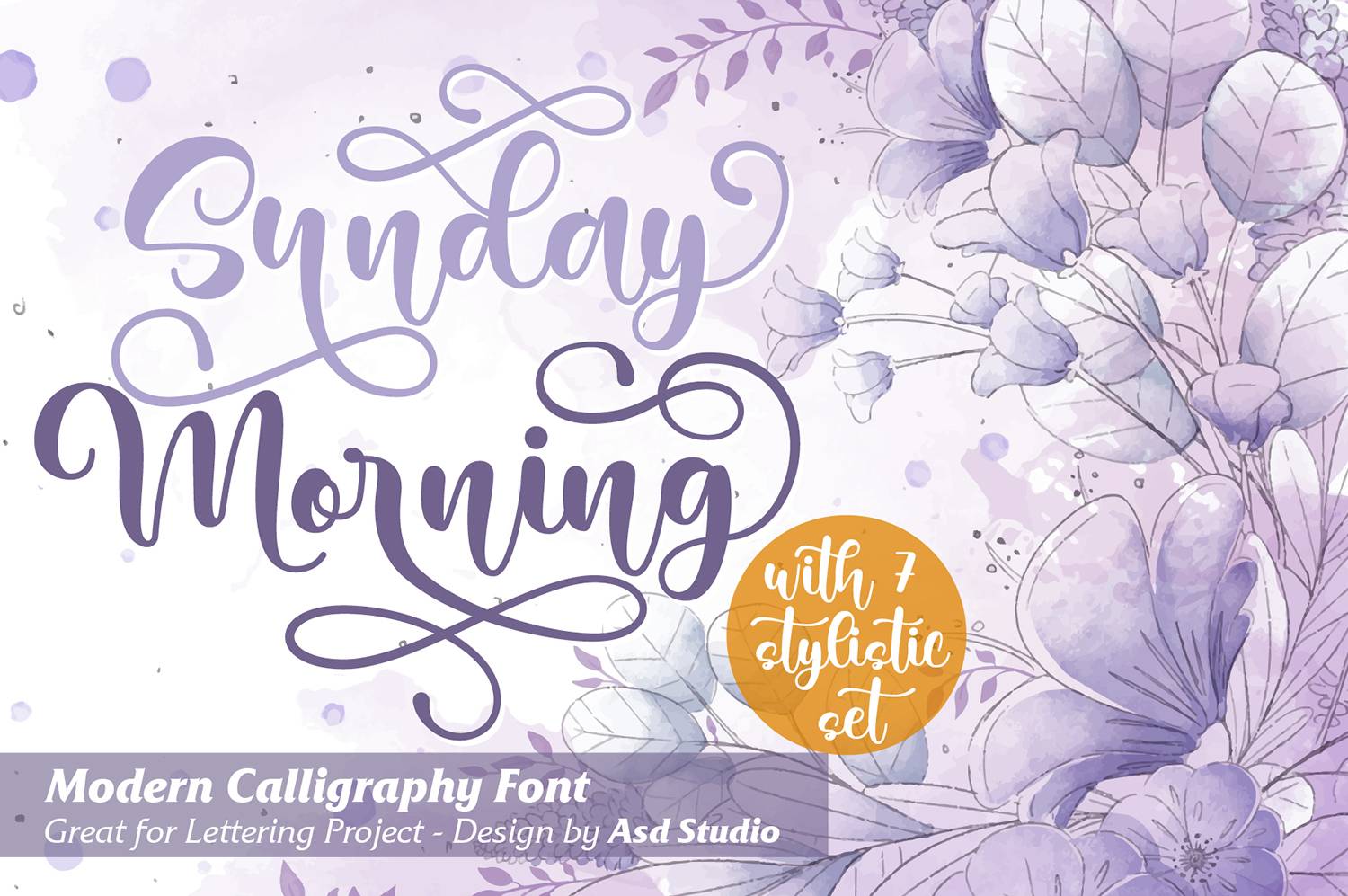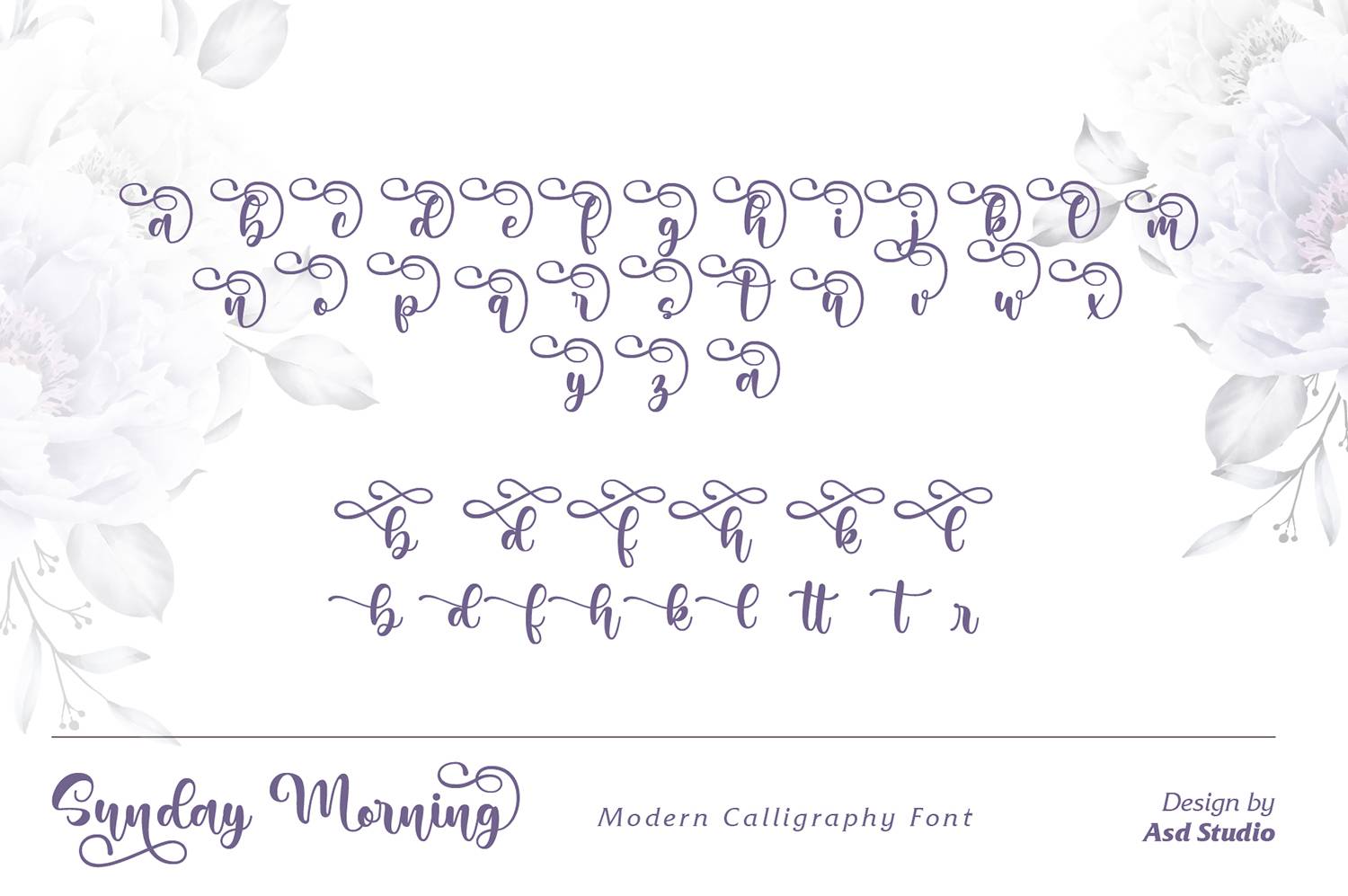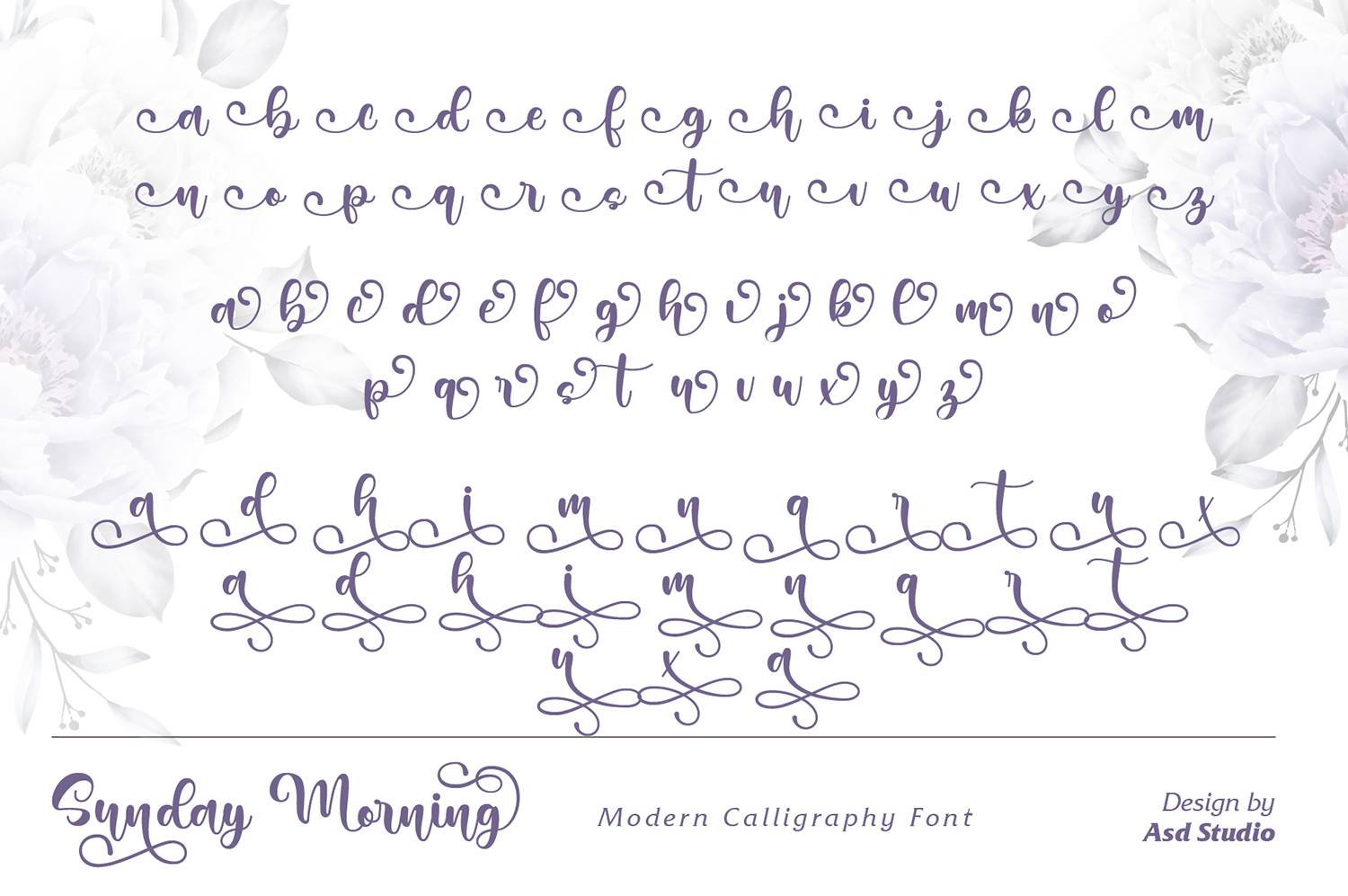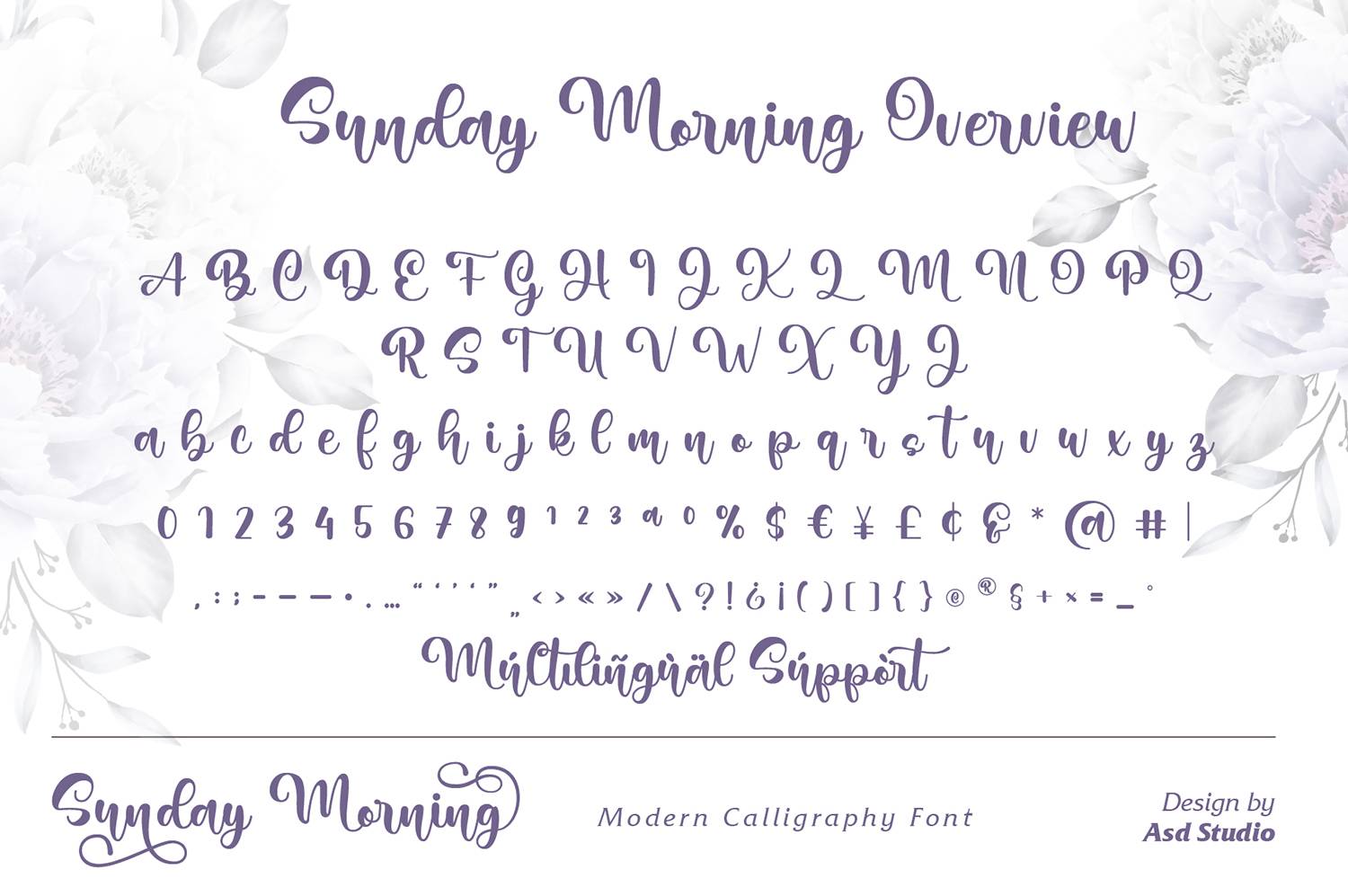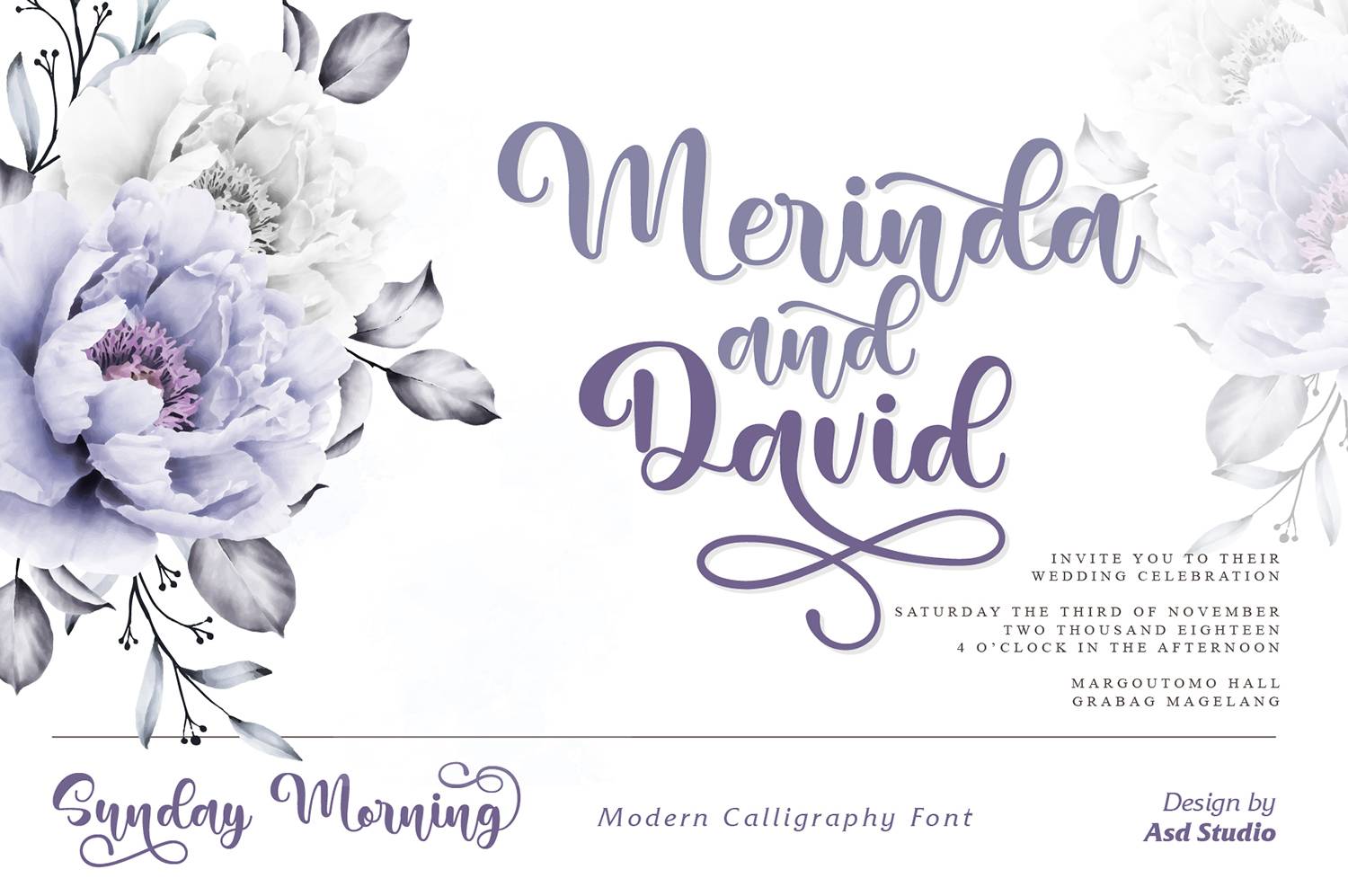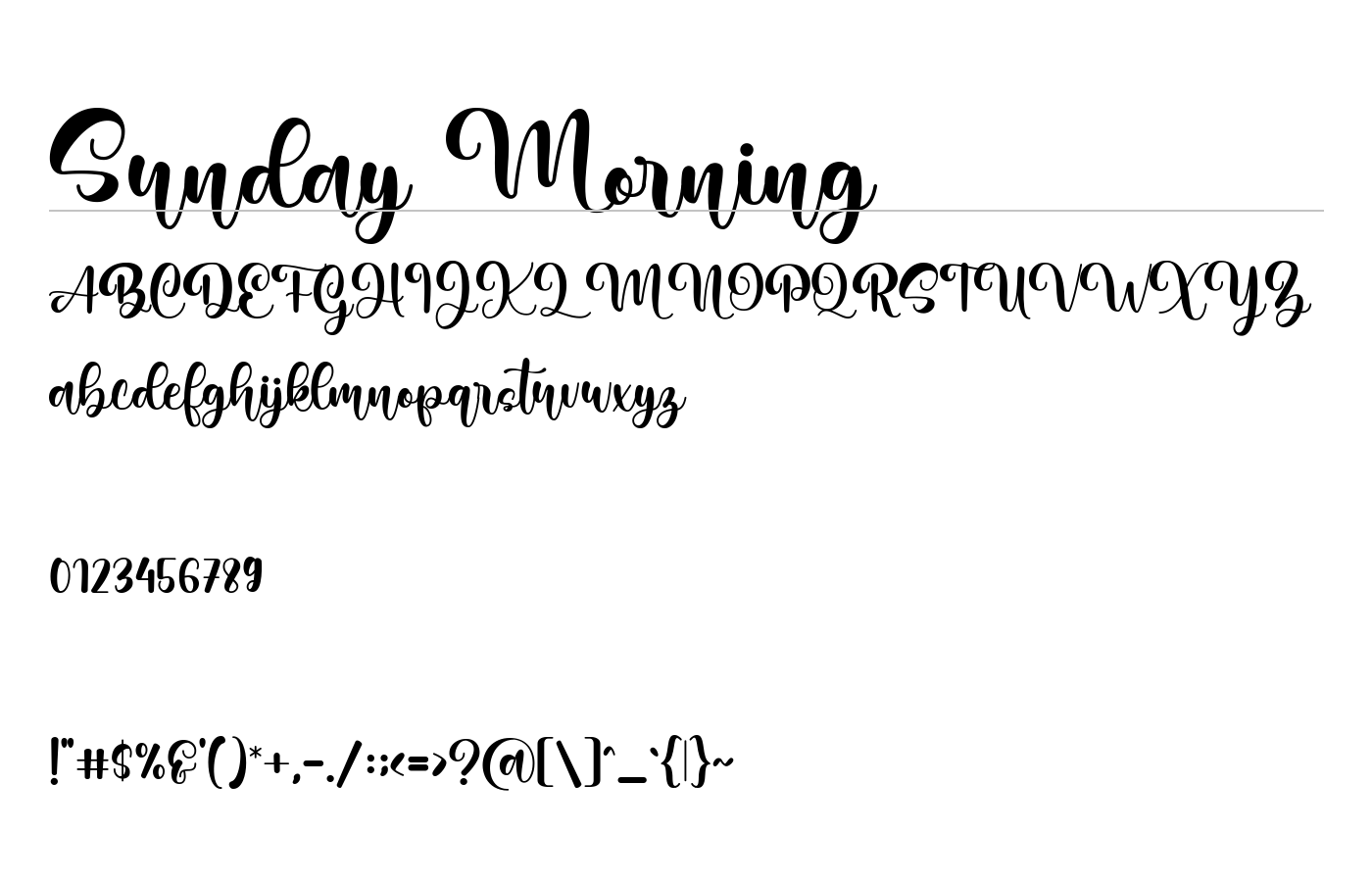
Sunday Morning is a stylish script font with a warm, flowing character that combines playful loops with solid, rounded strokes. Its medium weight and balanced contrast create a friendly yet elegant feel, making it perfect for inviting branding, wedding invitations, and creative headlines that need a charming, personal touch. This font works beautifully when you want to add a natural, handcrafted vibe with clear readability in both uppercase and lowercase letters.
Sunday Morning Font
About Sunday Morning Font
| Font family | Sunday Morning Font |
| Designer | Shafiyyah Hasna |